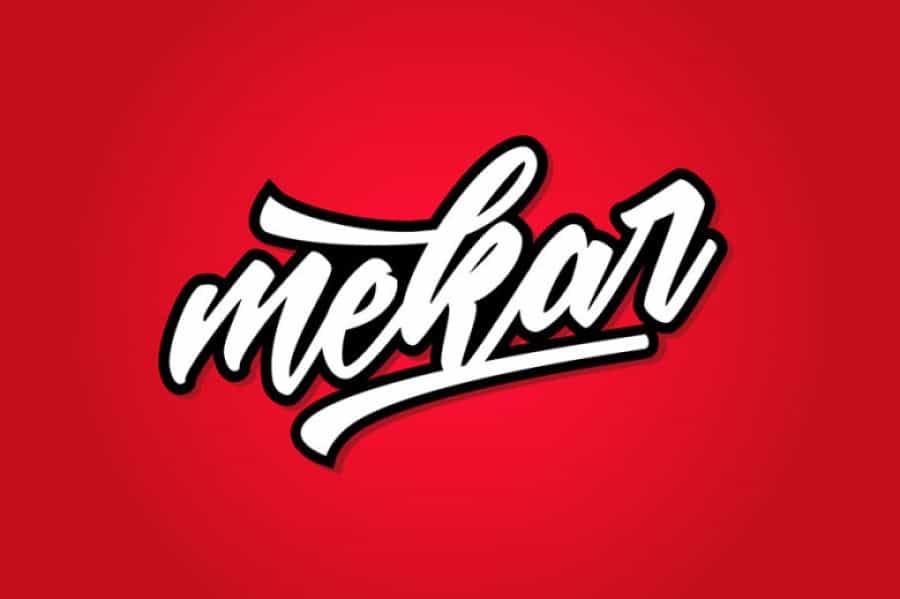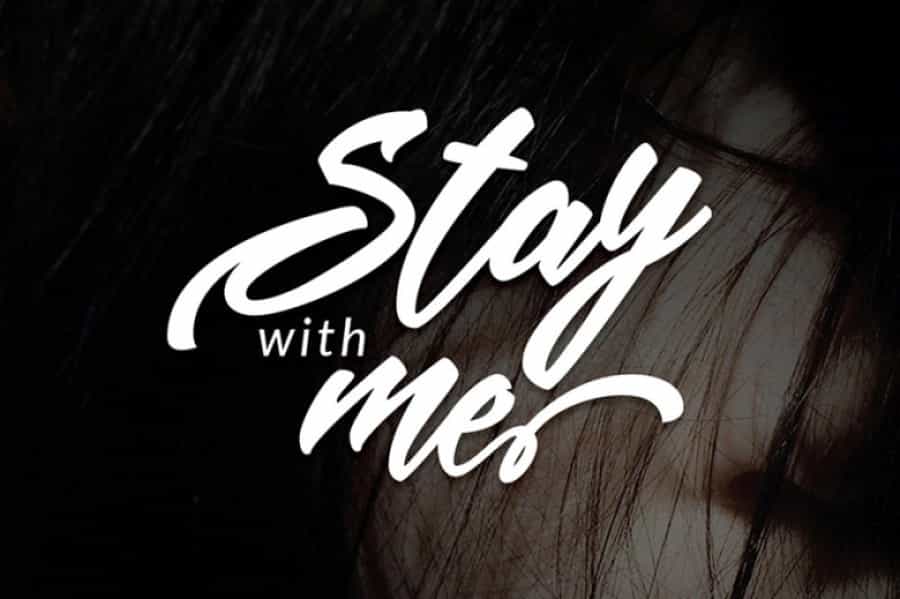
Mekar Script is a new font calligraphy type which is modern and classic at the same time, suitable for logos, printed quotes, invitations, cards, product packaging, headers, and any thing as far as you can imagine. Although not having the full list of dynamic text elements, Mekar Script enables you to create special dynamic text as shown below.